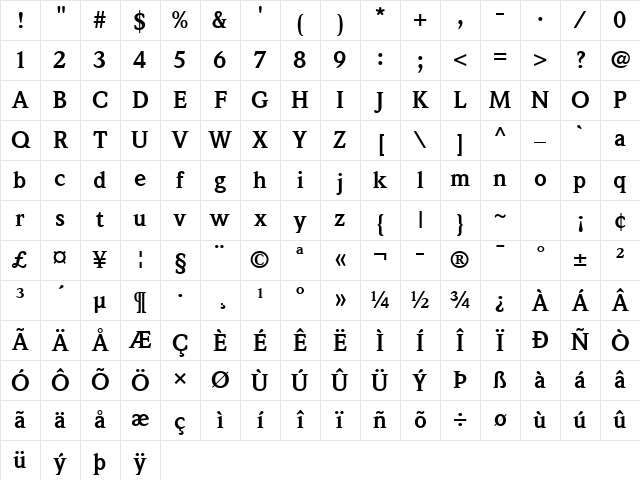
ITC Weidemann Com Bold Free Font
ITC Weidemann Com Bold
Designer: Kurt Weidemann
Design Context for ITC Weidemann Com
ITC Weidemann Com is a composed and adaptable typeface that performs quietly and consistently across a wide range of design contexts. Its bold stroke weight gives it real presence on the page.